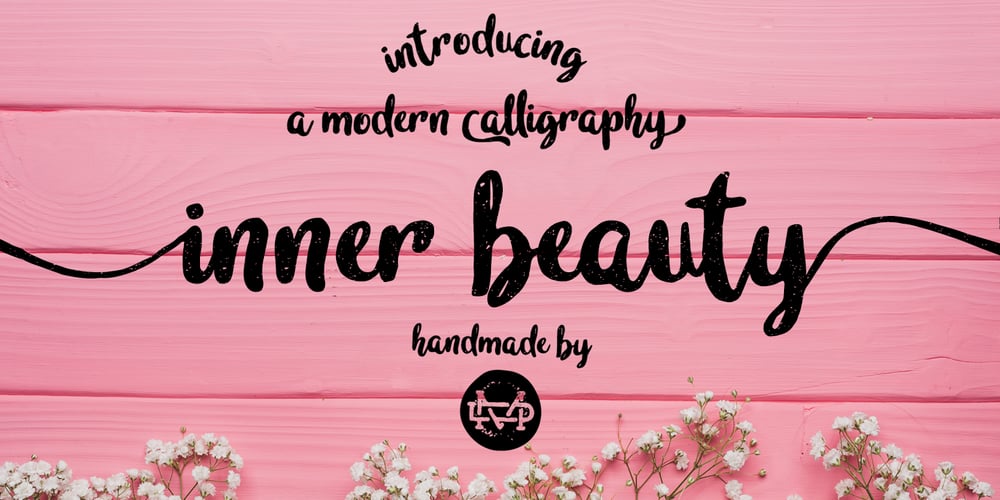
Inner Beauty Font Family was designed by Suandana ipandemade and published by madeDeduk. Inner Beauty contains 1 styles and family package options. I’m really excited to introduce Inner Beauty, a bold handwriting font with a cool character! Inner Beauty come more than 350 glyphs and is perfect for all your design projects or events. Feature – Uppercase – Lowercase – Number & Symbol – International Glyphs – Alternative Uppercase – Alternative lowercase – Ligatures – Swashes If you need anything else just shoot me an email at: dedukvic@gmail.com